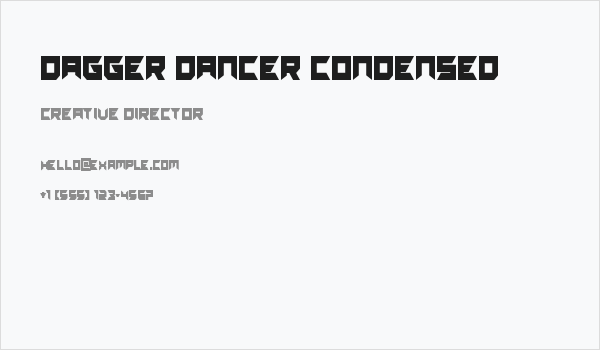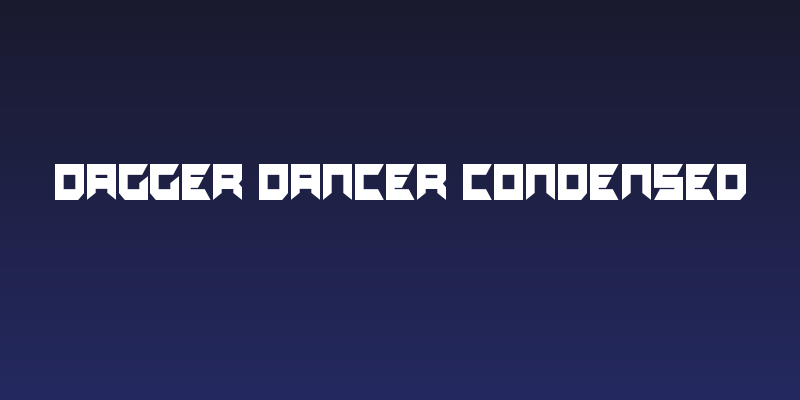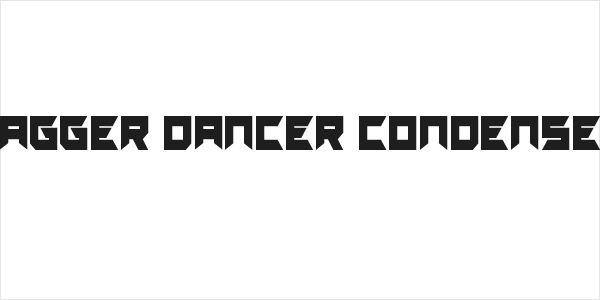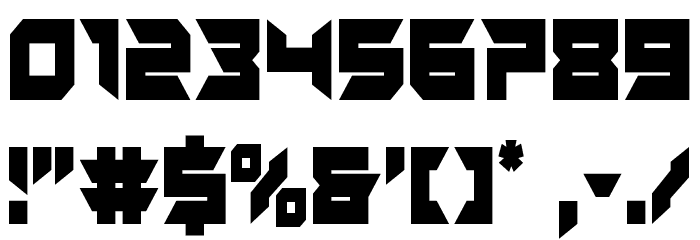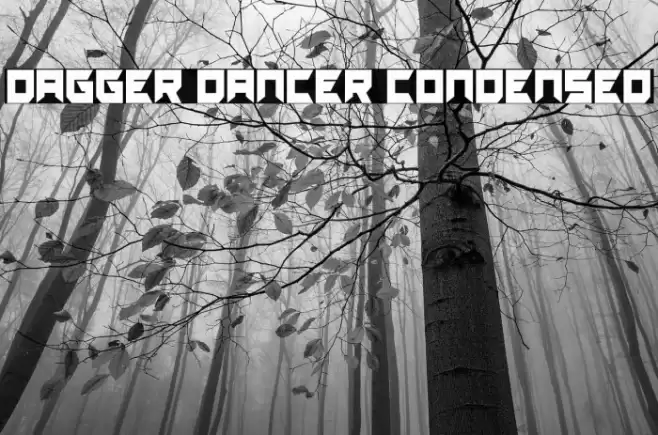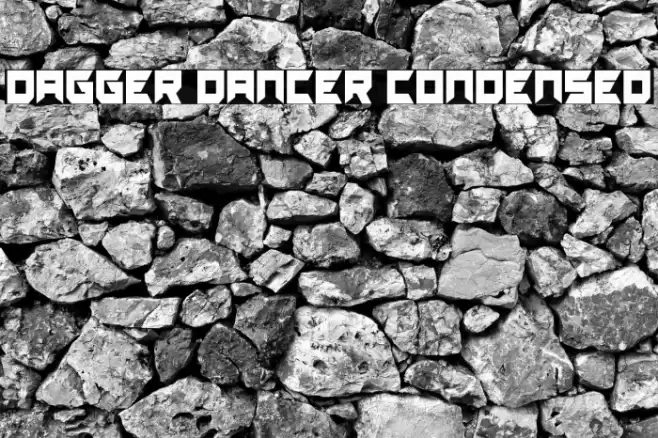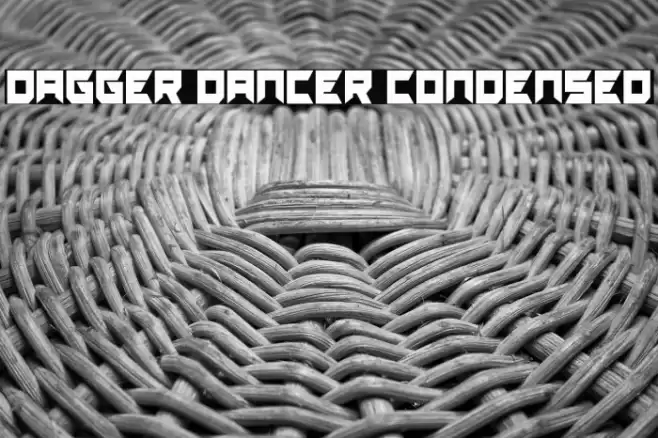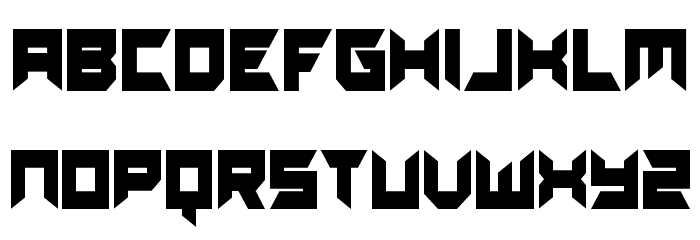
Dagger Dancer Condensed Font
| العرض | Condensed |
| مشاريع مقترحة | Ideal for sci-fi themed designs, video game titles, posters, and branding that requires a modern and bold statement. |